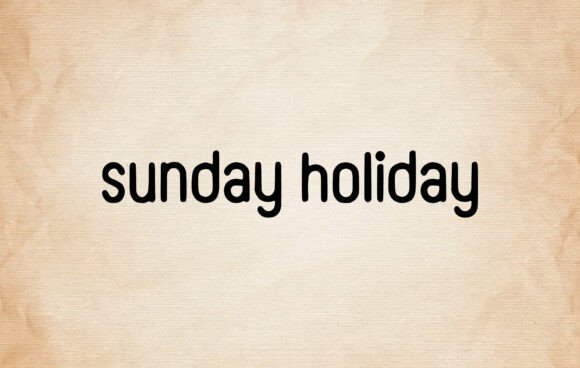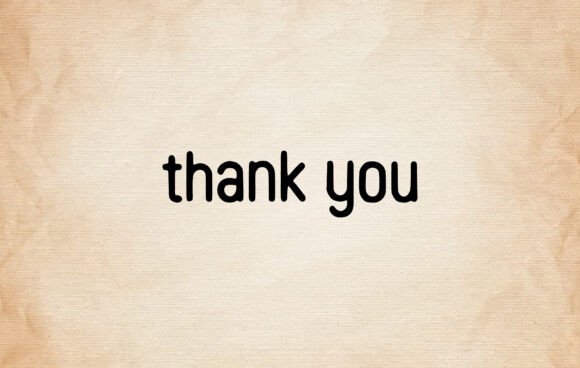
Blessful Font: Elevate Your Creative Projects with Elegance and Legibility
Are you searching for a font that can take your creative ideas to new heights? Look no further than the Blessful Font. Expertly designed to be a true favorite among designers and crafters, this font boasts a unique blend of elegance, legibility, and versatility. Whether you’re working on a magazine headline, t-shirt design, social media post, or wedding invitation, the Blessful Font is the perfect choice to make your project stand out.
What Makes Blessful Font So Special?
The Blessful Font is more than just a collection of letters; it’s a tool designed to bring your creative visions to life. Its key features include:
- Legibility: One of the most critical aspects of any font is how well it can be read. The Blessful Font shines in this area, offering clear and concise letters that are easy on the eyes, whether used as title text or body text.
- Versatility: This font is incredibly versatile, making it suitable for a wide range of projects. From the bold statements needed for magazine headlines and t-shirt designs to the more delicate touch required for wedding invitations and greeting cards, the Blessful Font adapts seamlessly.
- Elegance: The Blessful Font carries an air of sophistication and elegance, making it perfect for projects that require a touch of class. Its refined lines and balanced proportions ensure that your designs look polished and professional.
Applications of Blessful Font
The possibilities are endless with the Blessful Font. Here are some of the many ways you can use this fantastic font:
- Magazine Headlines: Create eye-catching titles that draw readers in. The Blessful Font’s unique style ensures that your headlines will stand out on the page.
- T-Shirt Designs: Whether you’re designing for a client or creating your own merchandise, this font will make your text-based designs look stylish and appealing.
- Social Media: Enhance your social media presence with professional-looking posts. The Blessful Font can help you create engaging content that stands out in crowded feeds.
- Branding: Establish a strong brand identity with a custom font that reflects your company’s values and style. The Blessful Font can be a valuable asset in your branding toolkit.
- Wedding Invitations and Cards: Add a touch of elegance to your wedding invitations, greeting cards, and other personal stationery. The Blessful Font’s sophisticated look makes it perfect for special occasions.
Why Choose Blessful Font?
With so many fonts available, why should you choose the Blessful Font for your projects? Here are a few compelling reasons:
- Expert Design: The Blessful Font has been crafted with care and attention to detail, ensuring that it meets the highest standards of typography.
- Time-Saving: Having a go-to font like Blessful can save you time in the long run. Instead of searching for the perfect font for each project, you can rely on Blessful to get the job done.
- Consistency: Using a consistent font across your projects helps to build recognition and professionalism. The Blessful Font can become a signature element of your brand or personal style.
The Blessful Font is more than just a typography; it’s a creative tool that can elevate your designs to new levels of elegance and professionalism. Its legibility, versatility, and sophisticated look make it an excellent choice for a wide range of projects, from digital content to print materials. By incorporating the Blessful Font into your design arsenal, you’ll be well on your way to creating stunning, cohesive, and engaging content that captivates your audience. So why wait? Discover the potential of the Blessful Font today and take your creative ideas to the highest level.